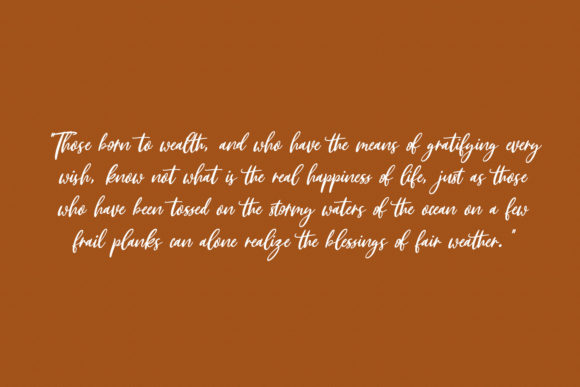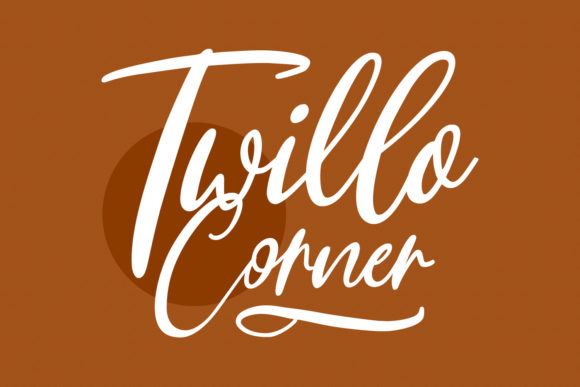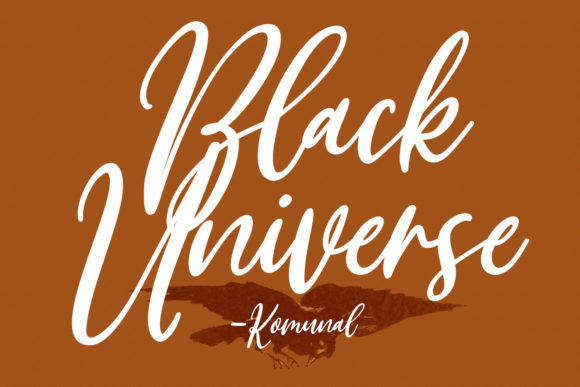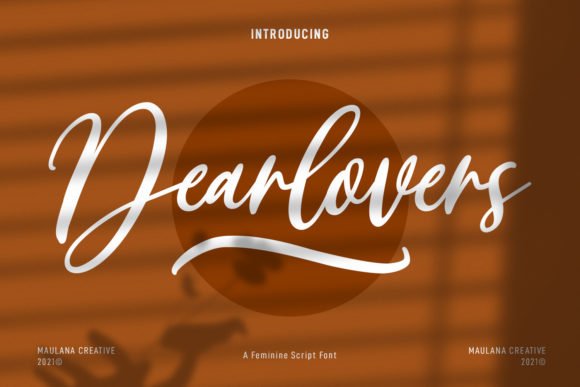
Introduction to Dearlovers Font
Dearlovers is a sweet and delicate handwritten font.
Dainty and joyful, this font will be ideal for writing wedding invitations, cards or any other design that may need a romantic, personalized touch .